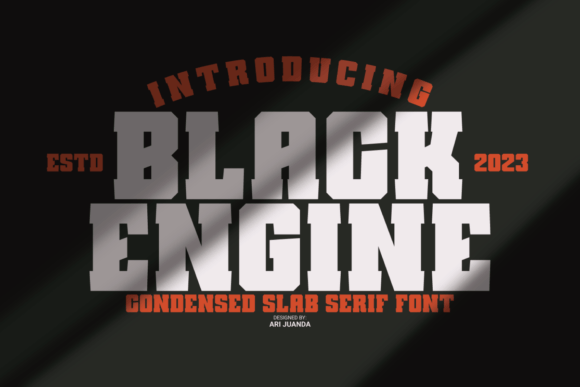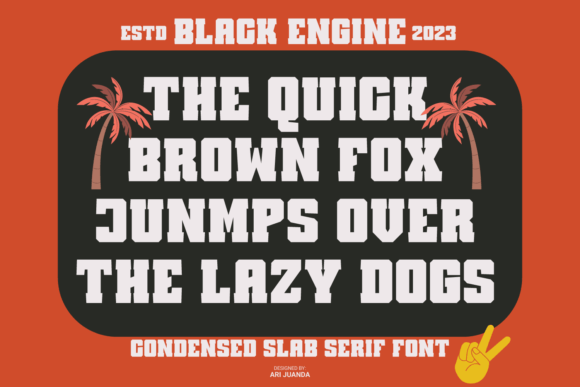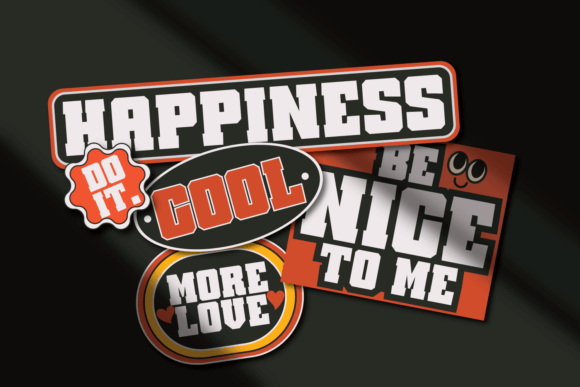
About Black Engine Font
The Black Engine condensed slab serif font is vintage-inspired with a touch of classic style. This font is built on a solid foundation, strong visuals, vintage motion, and a modern minimalist style. Black Engine is perfect for Jersey, athletics, posters, branding projects, logo designs and so much more.